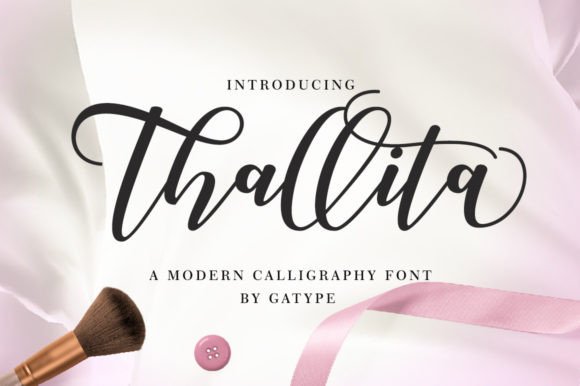
Introducing Thallita Font, the perfect script font for your special occasions and design projects. Created by gatype, this font is the epitome of sophistication and modernity, making it the ideal choice for those who want to make a statement. With its natural handwriting appearance, Thallita adds a personal touch to your invitation, making the recipient feel special and appreciated.
Thallita is the best font for headings fashion, giving your designs an elegant and stylish look. Whether you're designing invitations for weddings, dinner parties, private shows, or any other special occasion, Thallita is the perfect choice. It adds a touch of class and sophistication to your invitations, making them stand out from the rest.
Not only is Thallita perfect for invitations, but it's also versatile enough to be used in other design projects. You can use it for advertising art, design, wedding planning, florist, and fashion business, to name a few. With Thallita, even the simplest business card designs can look stylish and professional.
Thallita Font is the must-have font for anyone who wants to elevate their designs to the next level. Its unique style and natural appearance make it a favorite among designers and business owners alike. Download Thallita today and give your designs the elegance and sophistication they deserve.